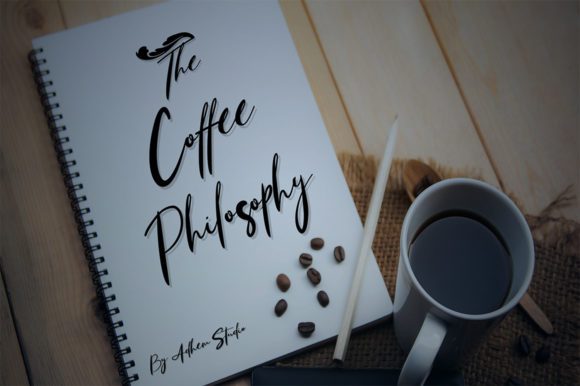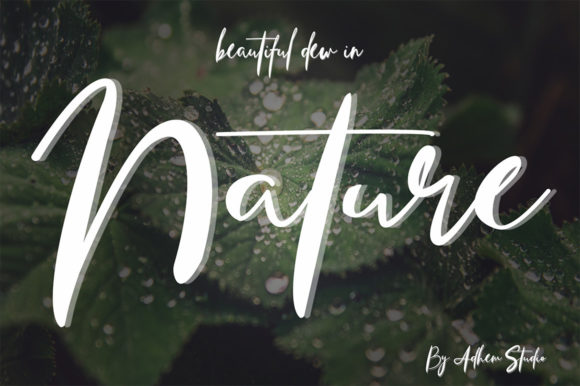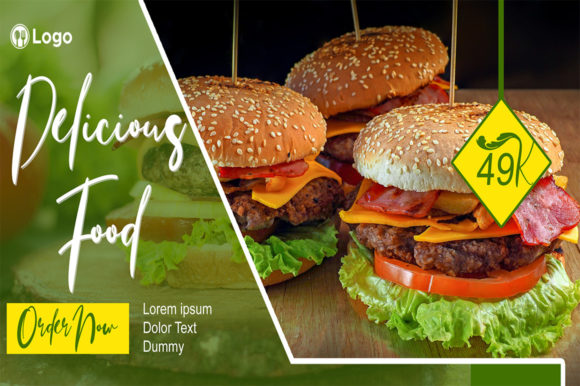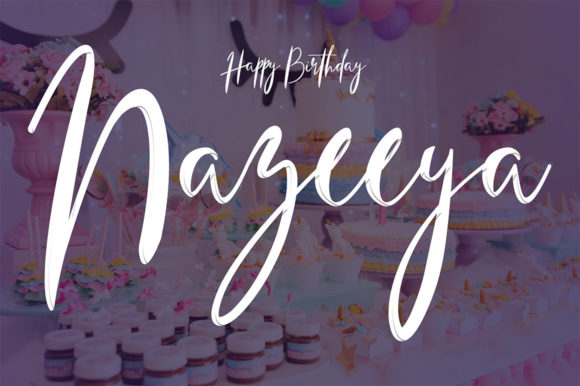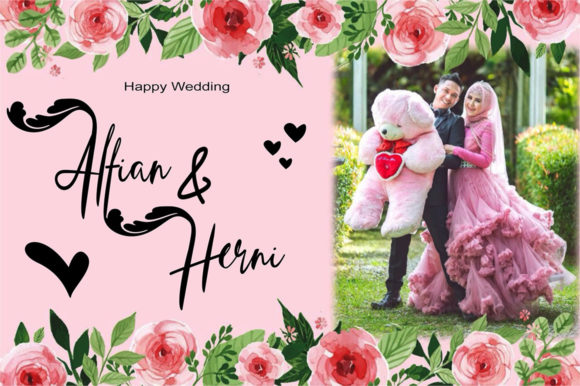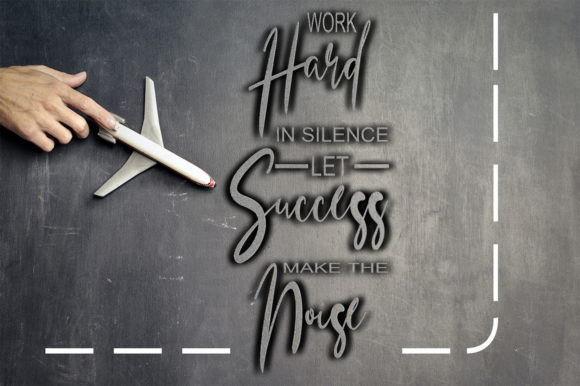
Introduction to Mythic Font
Do you remember that moment when you were brainstorming ideas for your creative project, and you stumbled upon the perfect font that made everything come together? For designers, finding the right font can be a game-changer. It’s the difference between a decent design and a truly exceptional one. That’s exactly what the Mythic Font offers – a stylish script font that elevates any design to the next level.
With its versatility and high-quality design, the Mythic Font is perfect for product packaging, invitation cards, greeting cards, id cards, and all aspects that require a touch of elegance. What’s more, it’s PUA encoded, making it easy to access all of the glyphs and swashes. Whether you’re working on a personal project or a commercial design, the Mythic Font is an invaluable design resource that will take your work to new heights.
Key Features of Mythic Font
- High-quality, elegant design perfect for creative projects and presentations.
- Unique, intricate design elements and flourishes add a touch of magic and sophistication to any creative project.
Honest Review: Mythic Font
Here are some of the things that work well with the Mythic Font:
- ✨ Unique and stylish design that adds a touch of sophistication to any project
- ✨ High-quality vector graphics that ensure crisp and clear text rendering
- ✨ Transparent background, making it easy to combine with other design elements
- ⚠️ Limited character set, which may not be suitable for projects that require a wide range of characters
- ⚠️ Some users may find the font too bold or overpowering, depending on the context
Overall, I’m really impressed with the Mythic Font. It’s a solid addition to any design resource collection, and its high quality ensures that it will be a trusted companion for my future creative projects.
Designing with Mythic Font
Mythic Font is a high-quality design resource that can add a touch of elegance to your creative project. Its transparent background makes it easy to layer with other design elements. Use it to create eye-catching titles, headings, and other text-based elements.
Common Use Cases for Mythic Font
Mythic Font is commonly used in a variety of design applications, including graphic design, digital design, and print design. It’s perfect for creating titles, headings, and other text-based elements that need to stand out from the rest of the design.